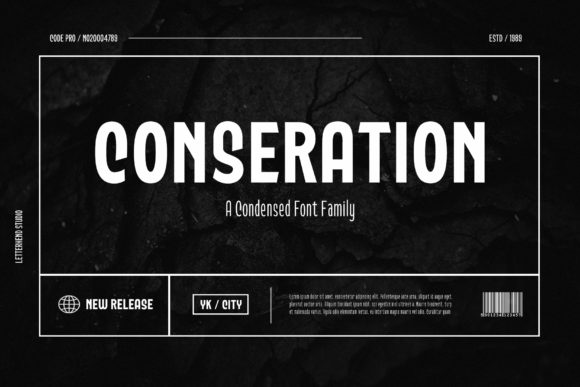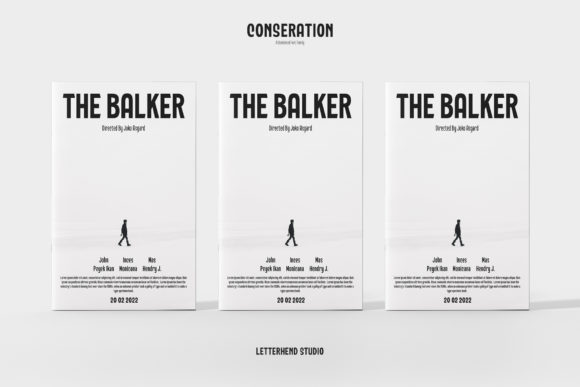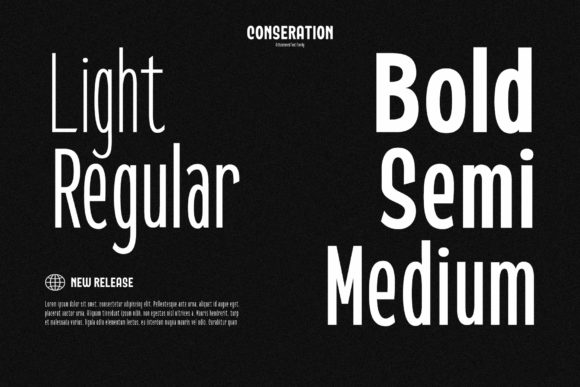
Conseration Font: Classy Condensed Sans Serif for Modern Logo Design
About the Conseration Font
Get ready to be inspired by Conseration Font, a fresh and dynamic typeface for modern creators. Conseration is a sans serif condensed font family. This typeface has 5 styles, regular, light, bold, semi and medium.
You can use it according to your needs. Luxury, classy yet still looks fun and playful in the same time.
Conseration’s condensed nature makes it ideal for headlines, short slogans, and branding applications where strong visual impact is desired. It works exceptionally well in logos, posters, and packaging design, particularly for products aiming for a sophisticated yet playful image. However, its condensed design is less suitable for body text or lengthy paragraphs; readability suffers at smaller sizes.
The font’s personality is best described as modern and sophisticated with a playful edge. Its slightly quirky letterforms prevent it from feeling overly serious. Consider pairing Conseration with a clean, geometric sans-serif like Montserrat for a balanced, contemporary feel, or a classic serif like Garamond for a touch of elegant contrast.
For a more playful outcome, a handwritten script like Pacifico could be used as an accent font. Avoid pairing it with overly ornate or decorative fonts that would clash with Conseration’s refined simplicity.
Conseration Font Usage Examples
Conseration Font Example